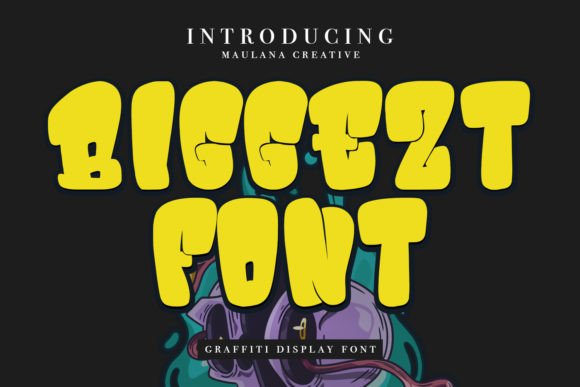
Introducing Biggezt Font: The Ultimate Display Font for Creative Masterpieces
Are you tired of using the same old fonts for your creative projects? Look no further! Biggezt Font is here to revolutionize the way you approach design. This incredibly unique display font is masterfully designed to become a true favorite among designers and crafters alike. With Biggezt, you can bring each of your creative ideas to the highest level and make a lasting impression on your audience.
What Makes Biggezt Font So Special?
Biggezt Font is not just another font – it’s an experience. Its unique design elements and bold personality make it perfect for a wide range of creative projects, from branding and advertising to packaging and digital media. Whether you’re a seasoned designer or a crafty DIY enthusiast, Biggezt Font is sure to inspire you to new heights.
Key Features of Biggezt Font
- Unique Design: Biggezt Font boasts a one-of-a-kind design that’s sure to turn heads. Its bold lines, elegant curves, and intricate details make it a true masterpiece.
- High Versatility: Biggezt Font is incredibly versatile, making it suitable for a wide range of creative projects, from logos and branding to posters and social media graphics.
- Ease of Use: Despite its complex design, Biggezt Font is surprisingly easy to use. Whether you’re a font newbie or a seasoned pro, you’ll be able to get started with Biggezt in no time.
- Scalability: Biggezt Font is designed to look great at any size, from small captions to large headlines.
Biggezt Font is a dream come true for designers and crafters who want to add a touch of personality to their work. Whether you’re creating a logo, brochure, or social media graphic, Biggezt Font is the perfect choice. Its unique design elements and bold personality make it sure to grab attention and leave a lasting impression.
How to Use Biggezt Font in Your Designs
- Pair it with a neutral font: Biggezt Font is bold and attention-grabbing, so pair it with a neutral font to create a balanced look.
- Experiment with colors: Biggezt Font looks great in a variety of colors, so don’t be afraid to experiment and find the perfect hue for your design.
- Play with sizes: Biggezt Font is scalable, so try using it in different sizes to create visual interest and hierarchy in your design.
In conclusion, Biggezt Font is an incredibly unique display font that’s sure to become a true favorite among designers and crafters. Its bold personality, unique design elements, and high versatility make it perfect for a wide range of creative projects. Whether you’re a seasoned designer or a crafty DIY enthusiast, Biggezt Font is the perfect choice for anyone looking to add a touch of personality to their work.